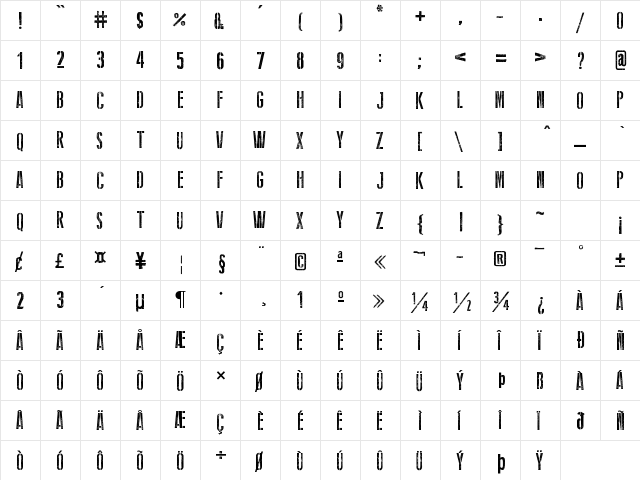
Stencil WW II Regular
Design Context for Stencil WW II Typeface
Stencil WW II borrows the utilitarian aesthetic of stencil lettering, with its characteristic cutaways and no-frills construction lending an industrial edge.
A strong choice for packaging that needs edge, warehouse aesthetics, and rough-and-ready visual identities.
Pro Tip: Use Stencil WW II at large sizes on packaging, posters, or apparel where the stencil cutaways read clearly. Avoid small sizes where those gaps become visual noise.